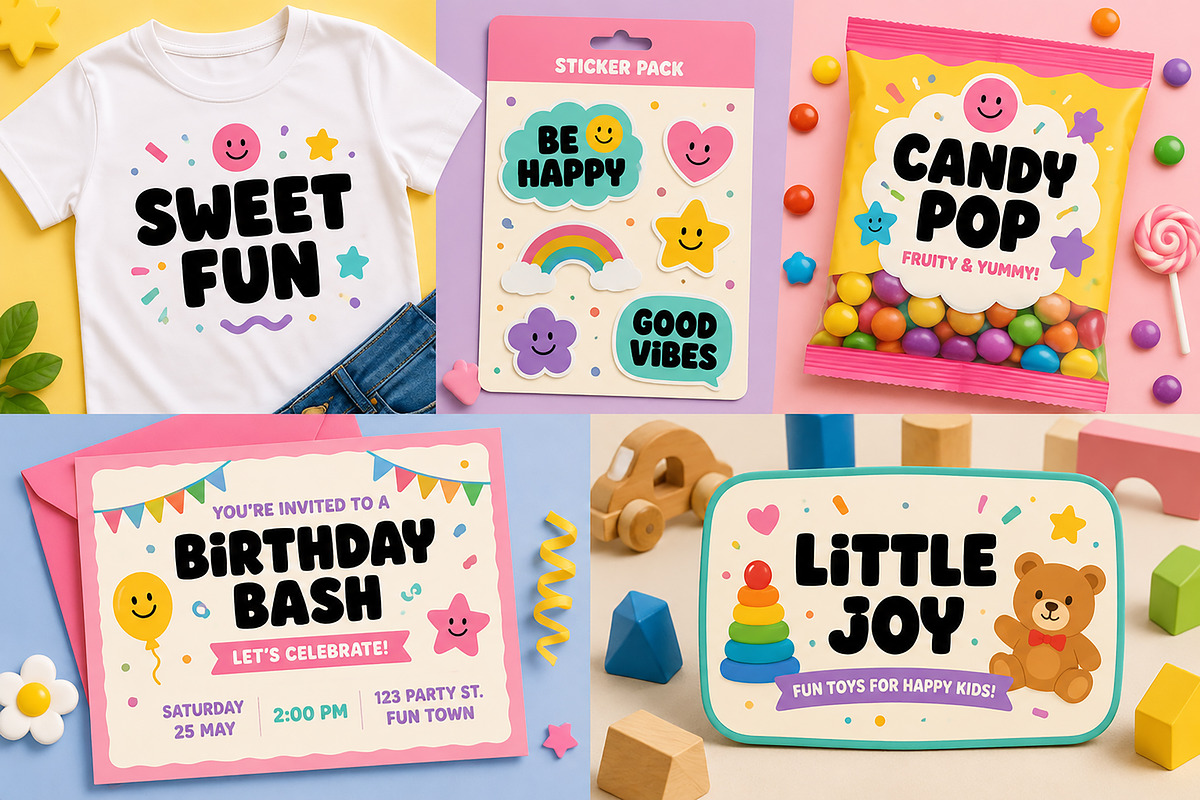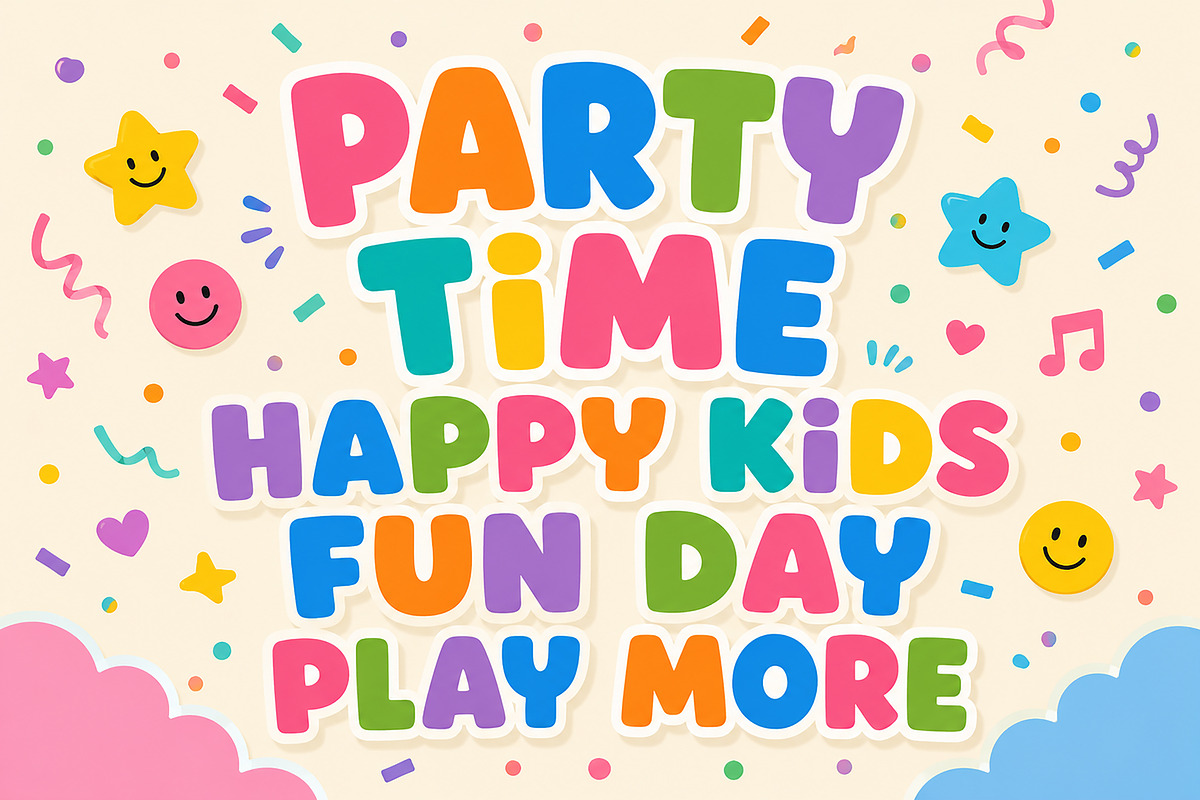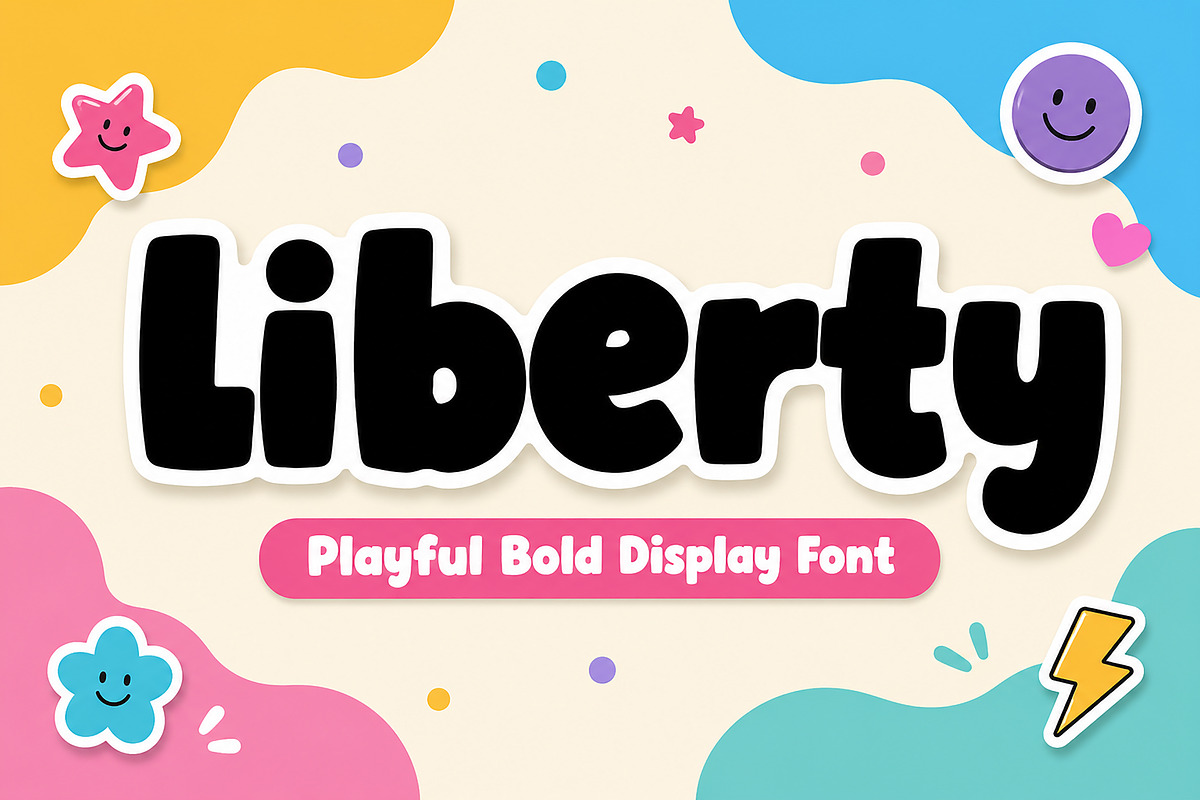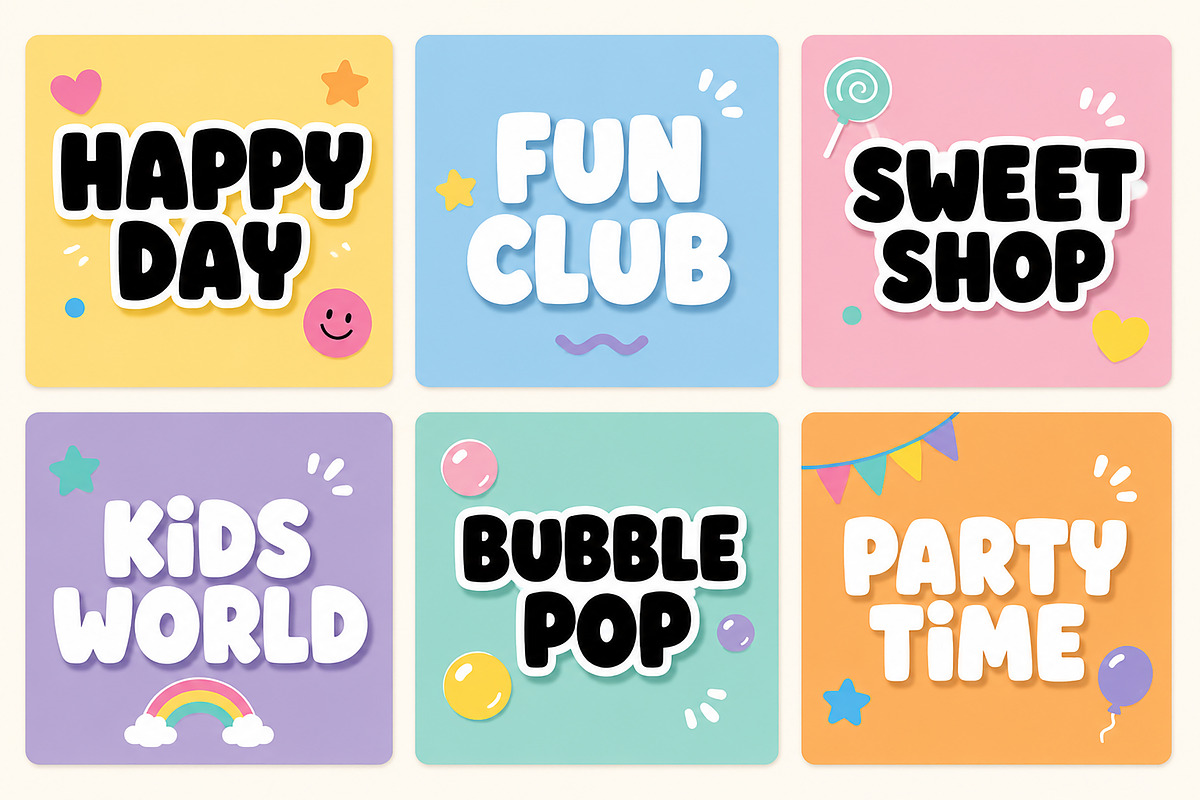
Liberty
Liberty – Playful Bold Display Font
Liberty is a fun, chunky, and bold display font designed to bring joy and personality to every project. With its soft rounded edges and playful letterforms, this font is perfect for kids' branding, party designs, packaging, stickers, logos, posters, and social media graphics. Its friendly and eye-catching style makes every word stand out while keeping a warm, cheerful feel.
Whether you're creating birthday invitations, toy packaging, classroom materials, Cricut projects, or colorful branding, Liberty adds a playful touch that instantly grabs attention. The bold shapes ensure excellent readability, making it suitable for both print and digital designs.
Kids Branding
Children's Products
Birthday Invitations
Party Decorations
Sticker Designs
Toy Packaging
Candy & Snack Packaging
Logos & Wordmarks
T-Shirt Designs
Cricut & Silhouette Projects
Posters & Flyers
Greeting Cards
YouTube Thumbnails
School & Classroom Projects
Bold Display Style
Fun & Friendly Letterforms
Rounded Characters
Easy to Read
Perfect for Headlines
High Visual Impact